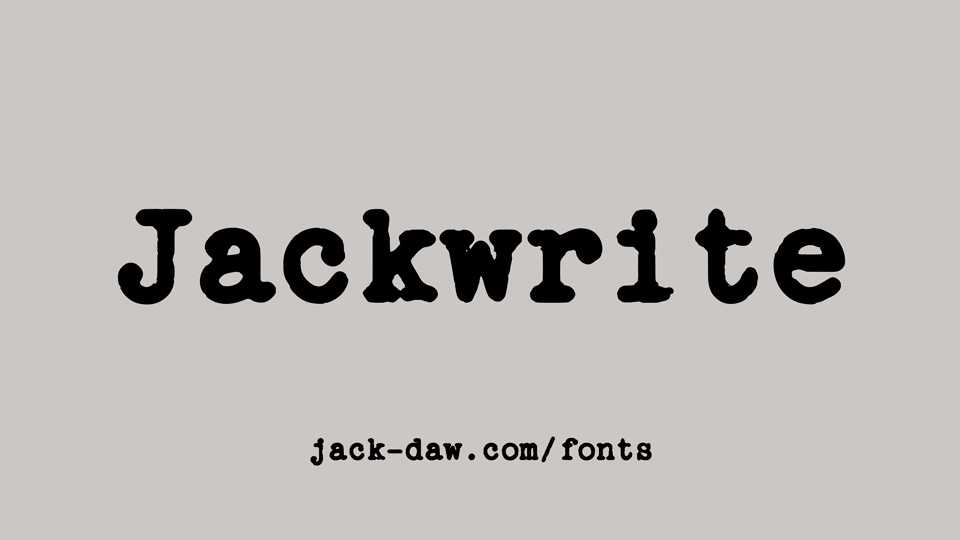
Download Jackwrite typeface, a portable proportional typewriter typeface, handcrafted from parts of other typewriters. Jackwrite mimics how its output maybe was.